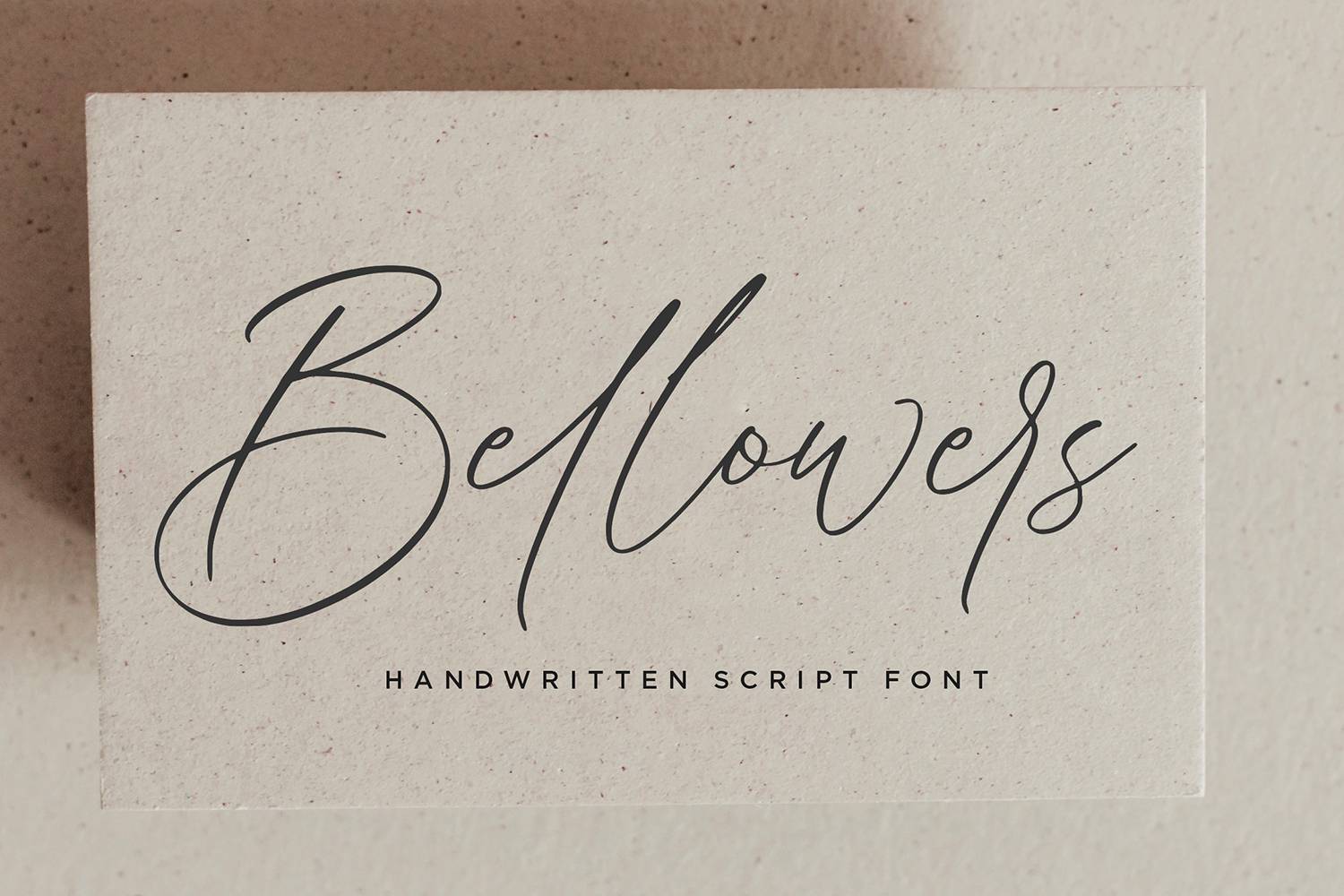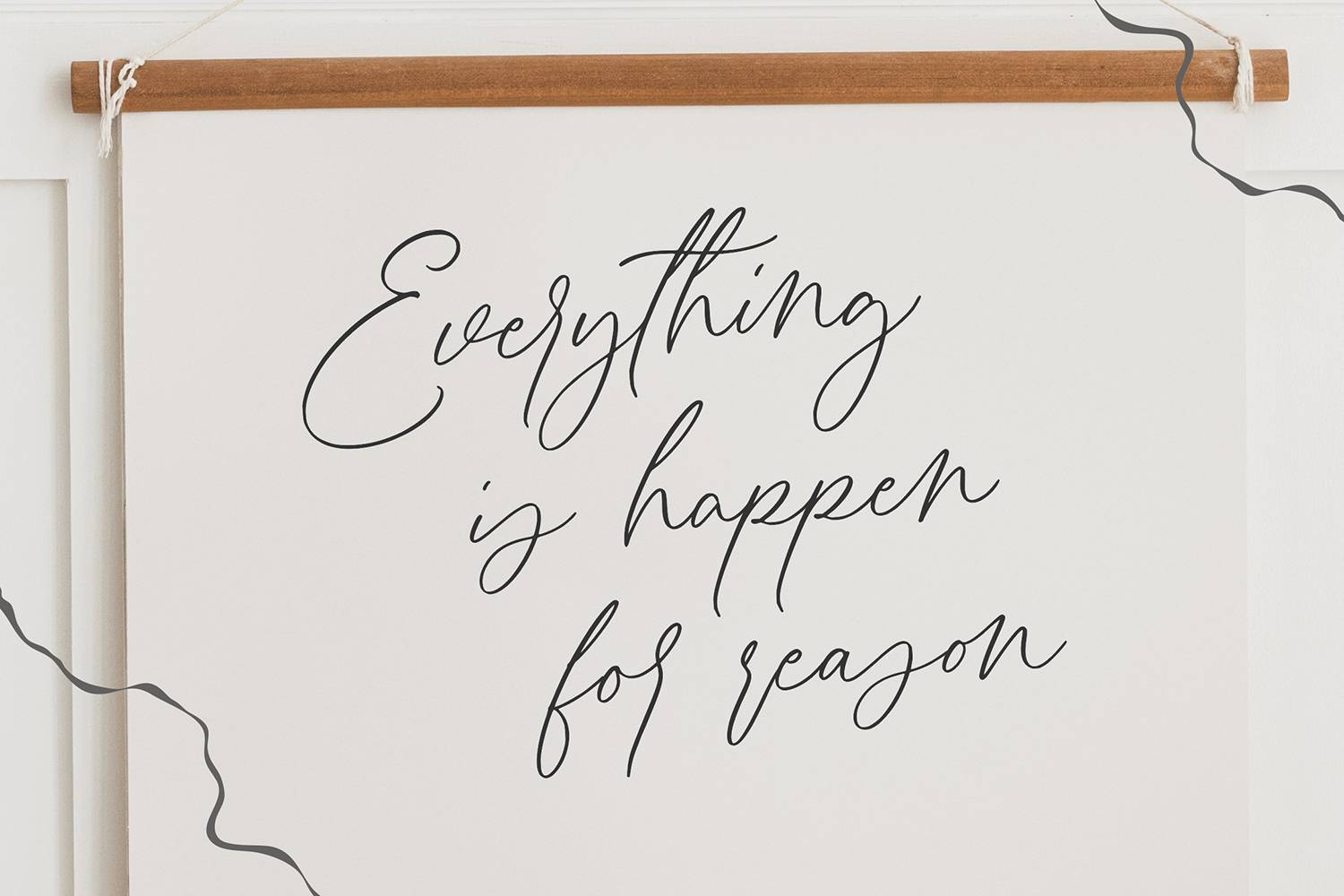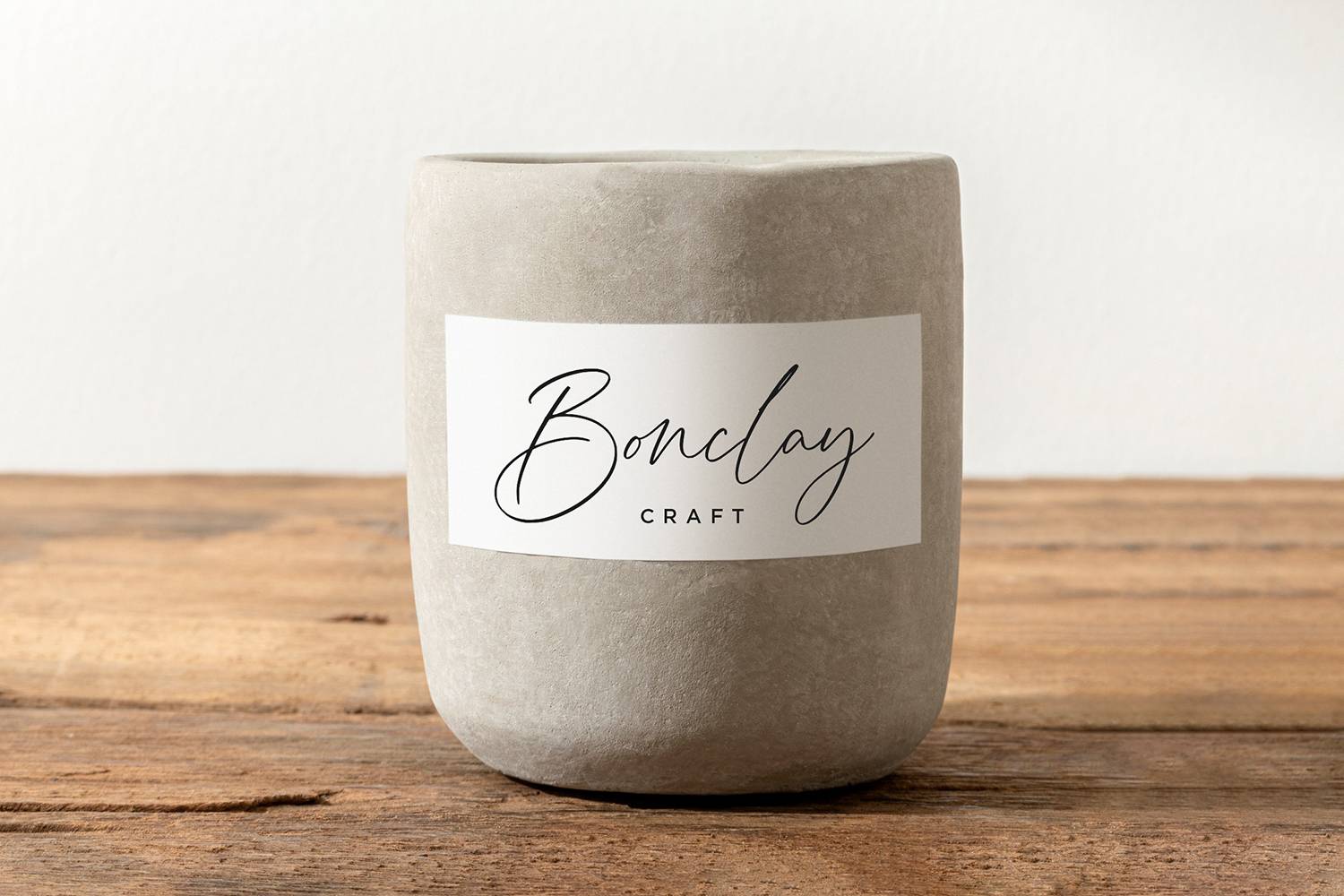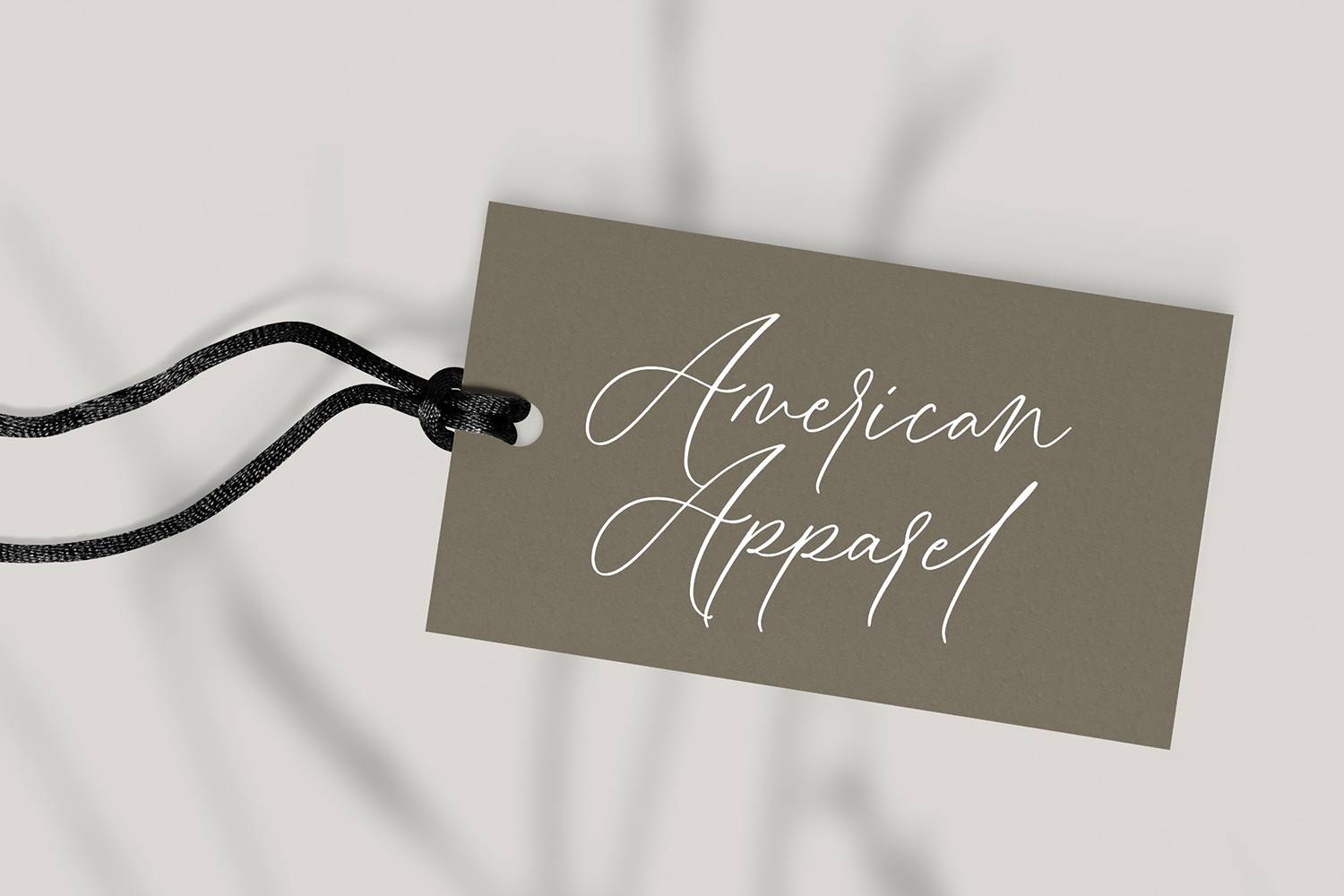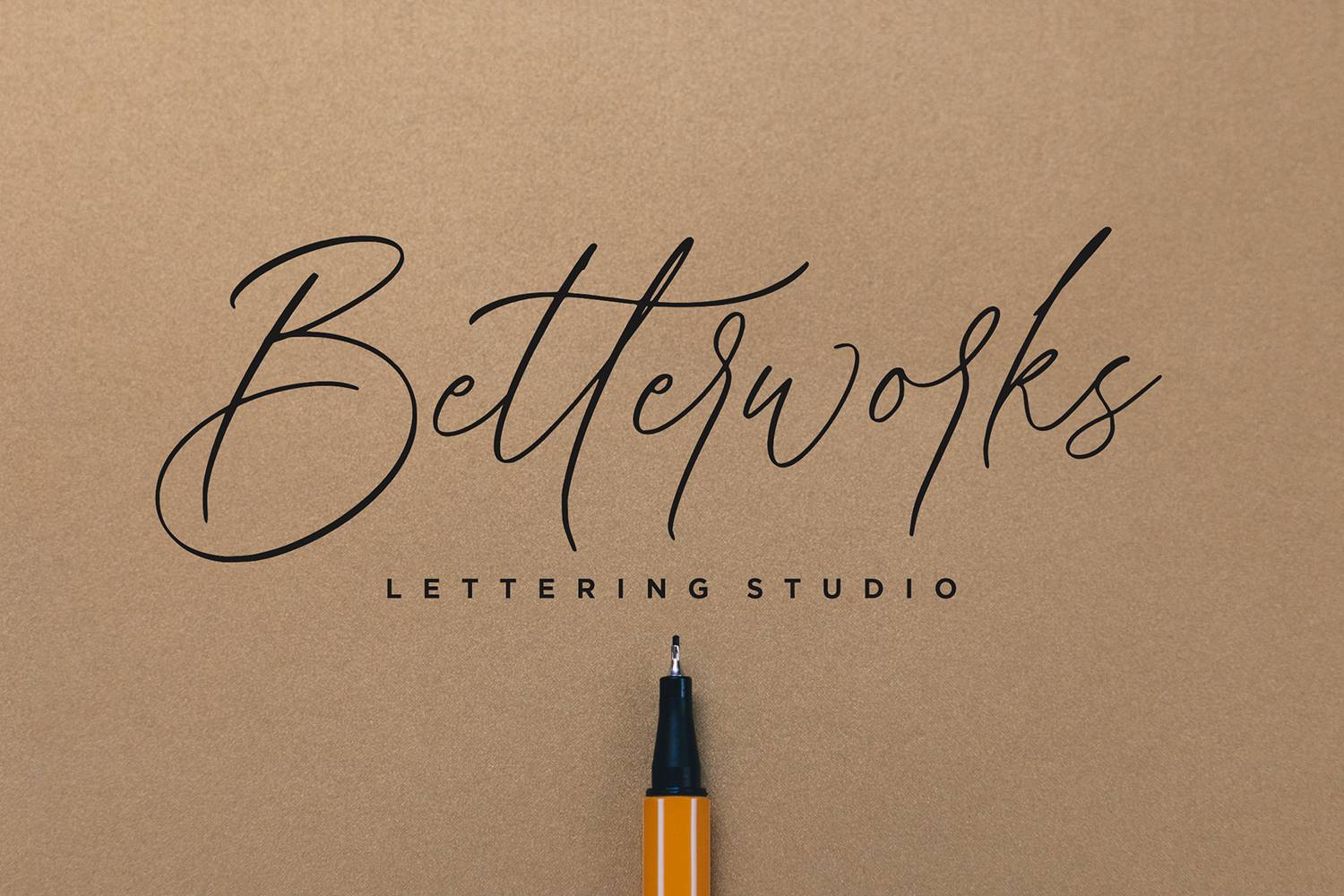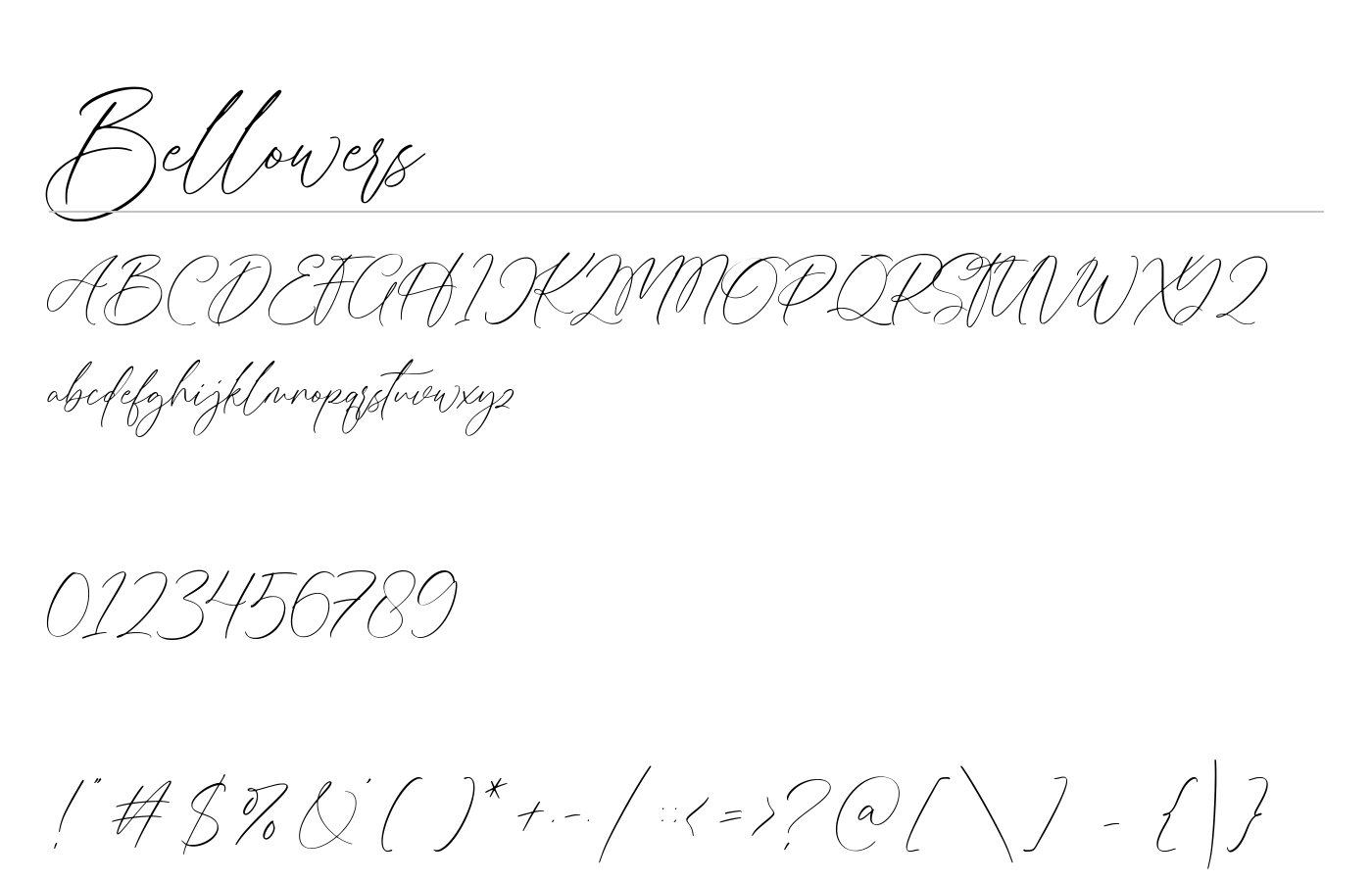
Bellowers is a delicate, elegant script font that features thin, flowing strokes with a graceful, handwritten feel. Its light weight and high contrast between slender lines give it a refined, sophisticated personality perfect for wedding invitations, luxury branding, and elegant editorial designs where a touch of modern, personal charm is desired. This font works best in large display settings, such as logos and headlines, where its intricate letterforms can truly shine.
Bellowers Font